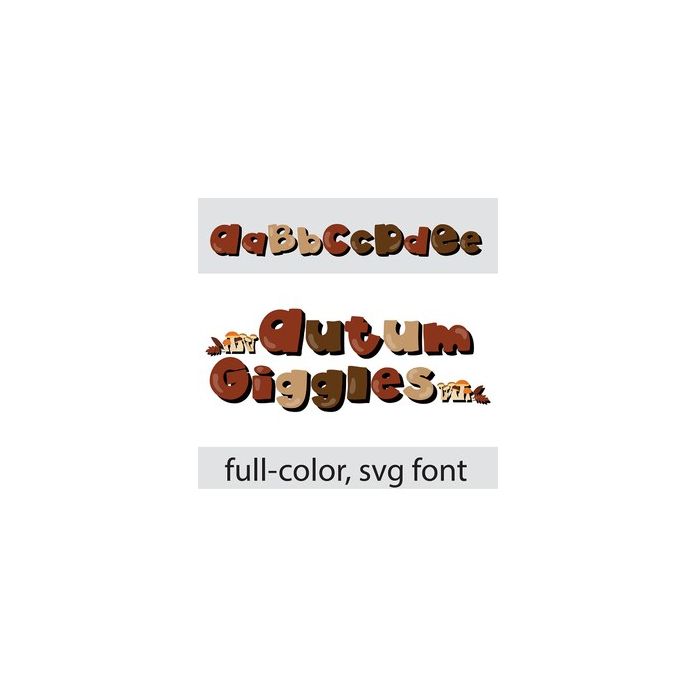
This full-color font features rounded, heavy lettering with big black shadows in an autumn color palette. There is a mushroom and leaf flourish that you can access by typing the greater than and less than glyphs. There is an alt case w/ additional colors you can access through your system or Silhouette's glyph map.